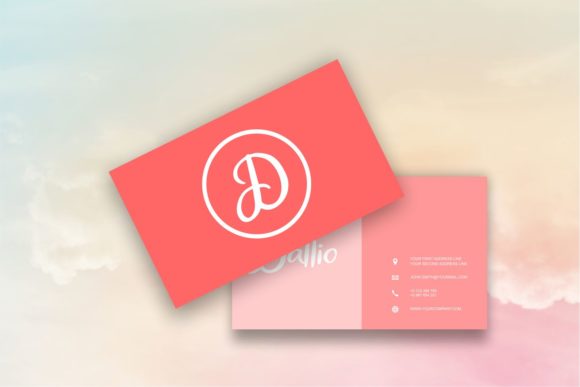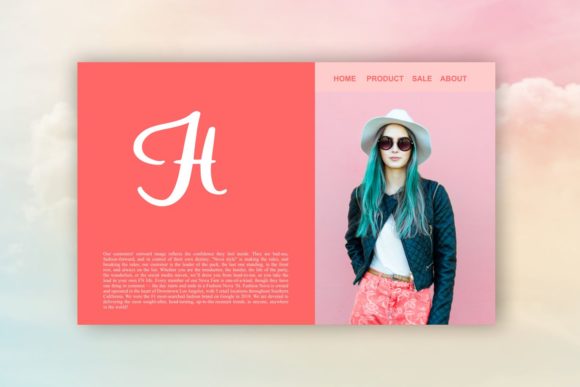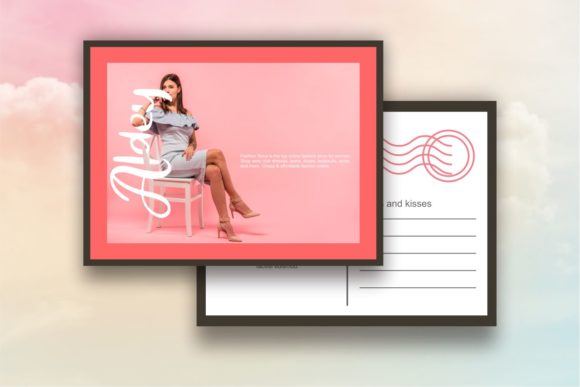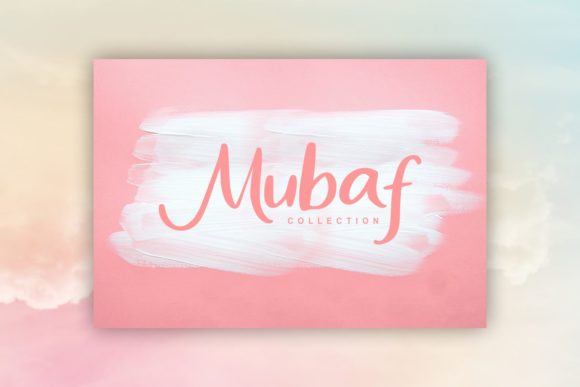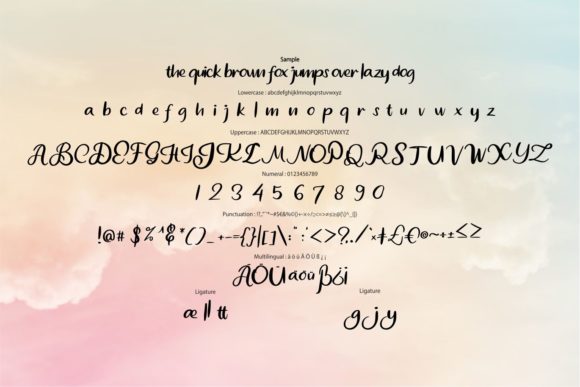
Introducing Comye Font: A Timeless Calligraphy Classic
In the world of typography, few fonts manage to capture the essence of classic calligraphy while also being versatile enough for modern design applications. Comye Font is one such gem that effortlessly bridges the gap between traditional elegance and contemporary creativity. This article will delve into the beauty of Comye Font, its features, and how it can elevate your design projects, whether you’re a professional designer or a crafting enthusiast.
The Beauty of Comye Font
Comye Font pays homage to the art of classic calligraphy, bringing a touch of sophistication and charm to any design it adorns. Its beautiful alternates are a standout feature, offering a range of stylistic variations that can add depth and personality to your text. Whether you’re working on greeting cards, branding materials, business cards, quotes, posters, or any other project that requires a personal touch, Comye Font is sure to impress.
Key Features of Comye Font
- Classic Calligraphy Inspiration: Comye Font draws inspiration from traditional calligraphy, providing a sense of nostalgia and timelessness to your designs.
- Beautiful Alternates: The font comes with a variety of alternates, allowing you to customize your text and add a unique flair to your designs.
- Versatility: Comye Font is incredibly versatile, making it suitable for a wide range of applications, from elegant greeting cards to professional branding materials.
Design Applications of Comye Font
The versatility of Comye Font makes it an excellent choice for various design projects. Here are some of the ways you can use Comye Font to elevate your designs:
- Greeting Cards: Add a personal touch to your greeting cards with Comye Font’s elegant and sophisticated lettering.
- Branding Materials: Use Comye Font to create a cohesive brand identity that exudes professionalism and style.
- Business Cards: Stand out from the crowd with beautifully designed business cards featuring Comye Font.
- Quotes and Posters: Comye Font’s classic calligraphy style adds a touch of elegance to quotes and posters, making them perfect for display.
Tips for Using Comye Font Effectively
To get the most out of Comye Font, consider the following tips:
- Experiment with Alternates: Don’t be afraid to try out different alternates to find the one that best suits your design.
- Mix and Match: Combine Comye Font with other fonts to create a unique and visually appealing design.
- Pay Attention to Spacing: Adjust the spacing between letters to ensure your text looks balanced and harmonious.
Comye Font is a beautiful and versatile typeface that pays homage to classic calligraphy while also meeting the demands of modern design. Its elegant lettering, beautiful alternates, and wide range of applications make it an excellent choice for designers and crafters looking to add a touch of sophistication to their projects. Whether you’re creating greeting cards, branding materials, or posters, Comye Font is sure to elevate your designs and leave a lasting impression.